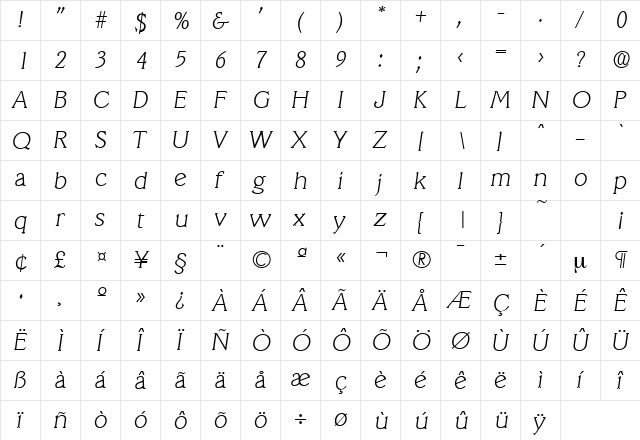
Veracruz-Serial-ExtraLight RegularItalic Font Preview
Design Context for Veracruz-Serial-ExtraLight Typeface
Veracruz-Serial-ExtraLight takes a measured approach to typography — its balanced proportions and neutral character make it a reliable workhorse for both digital and print work. Its italic angle brings a sense of urgency and motion to the letterforms. Its slender proportions lend an understated elegance to any composition.
Pro Tip: Try Veracruz-Serial-ExtraLight for annotation and caption copy alongside an upright companion — the contrast in angle creates a dynamic but ordered typographic system.